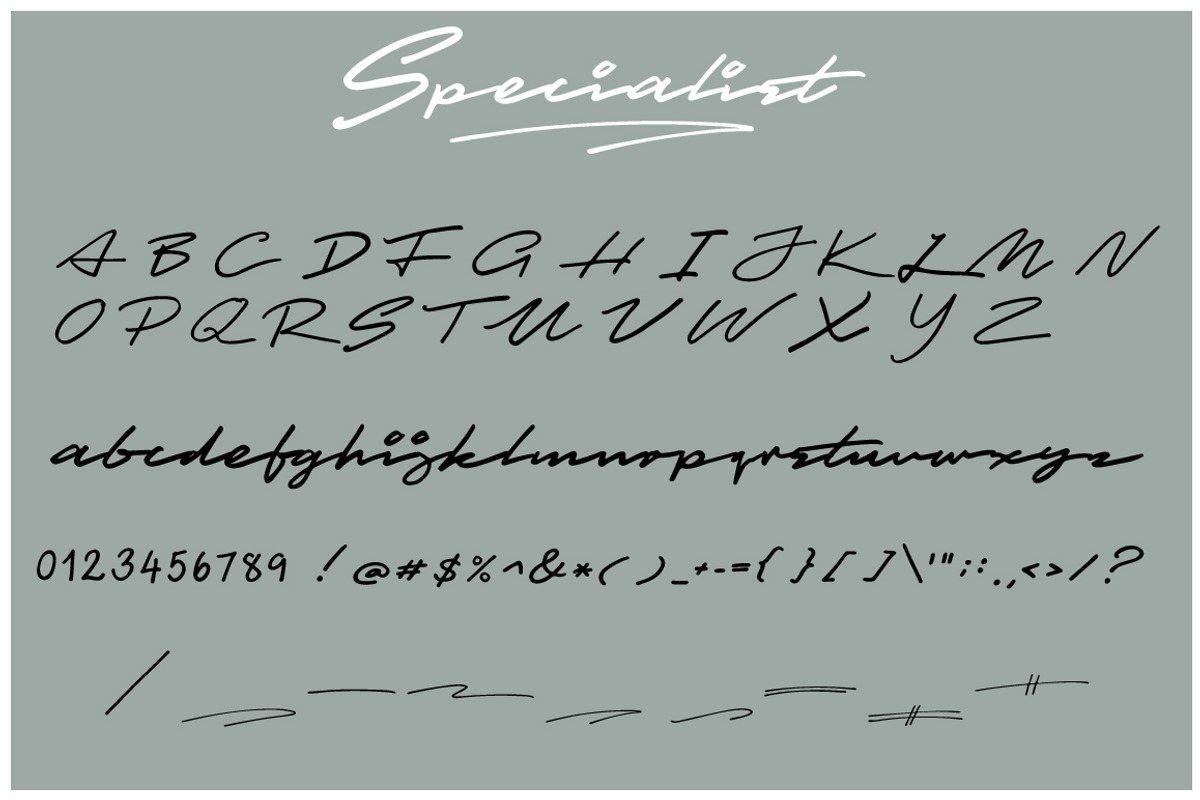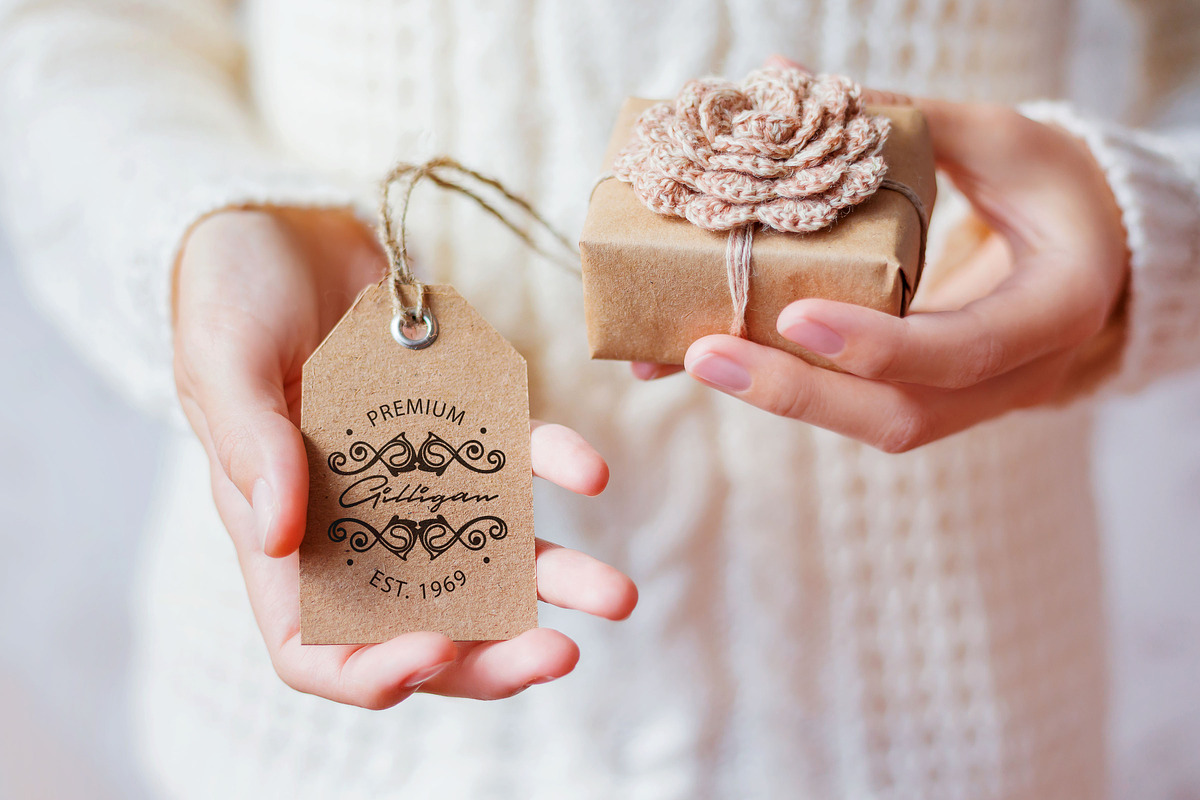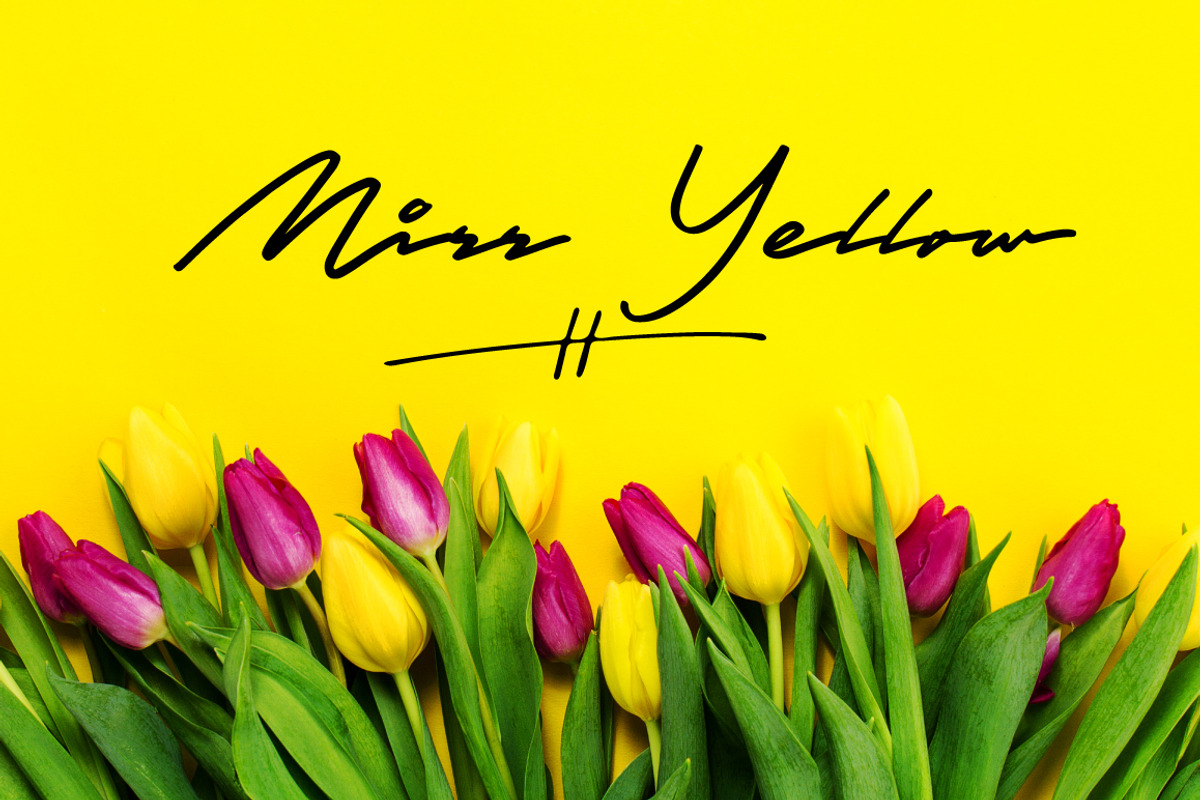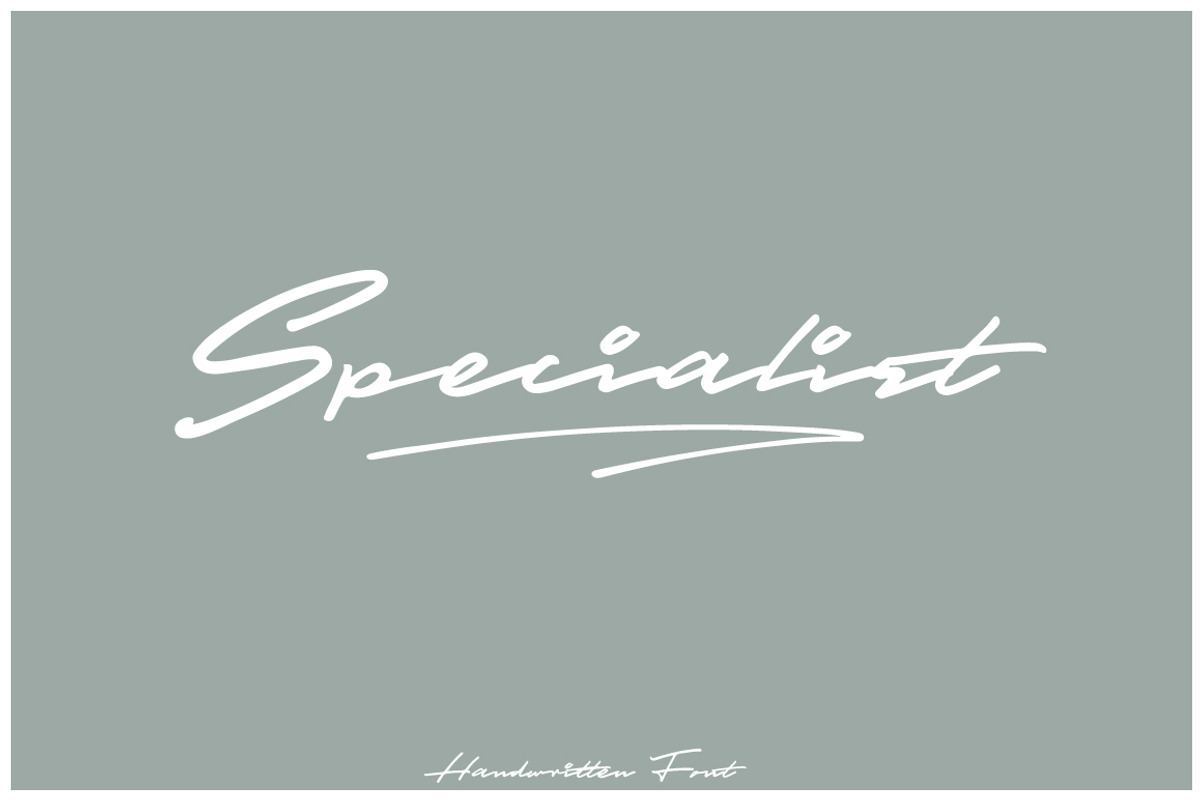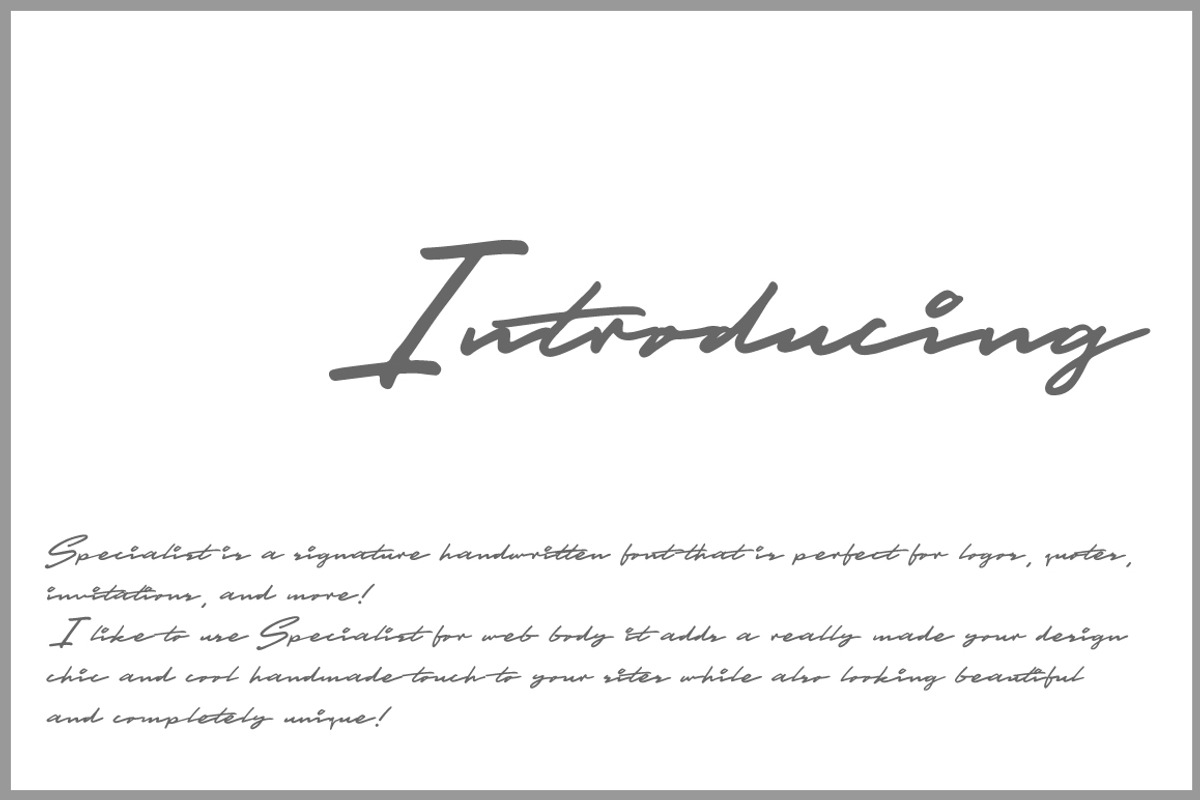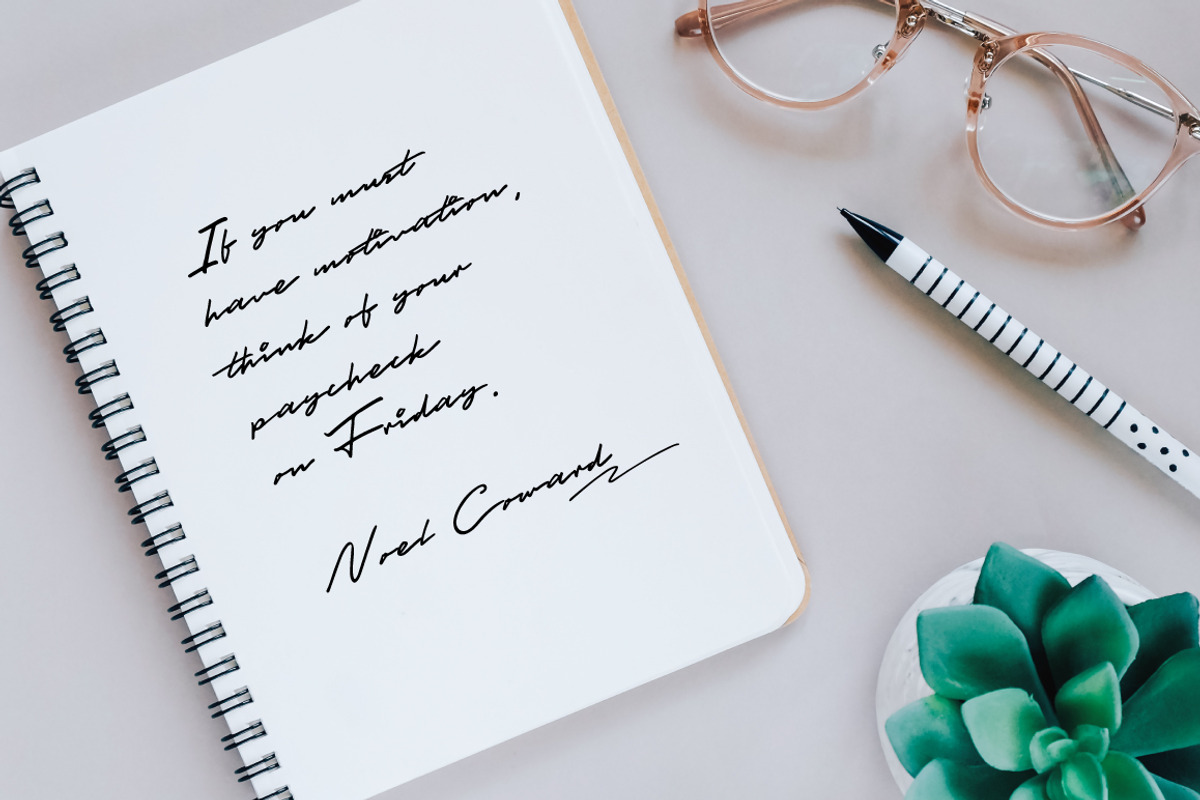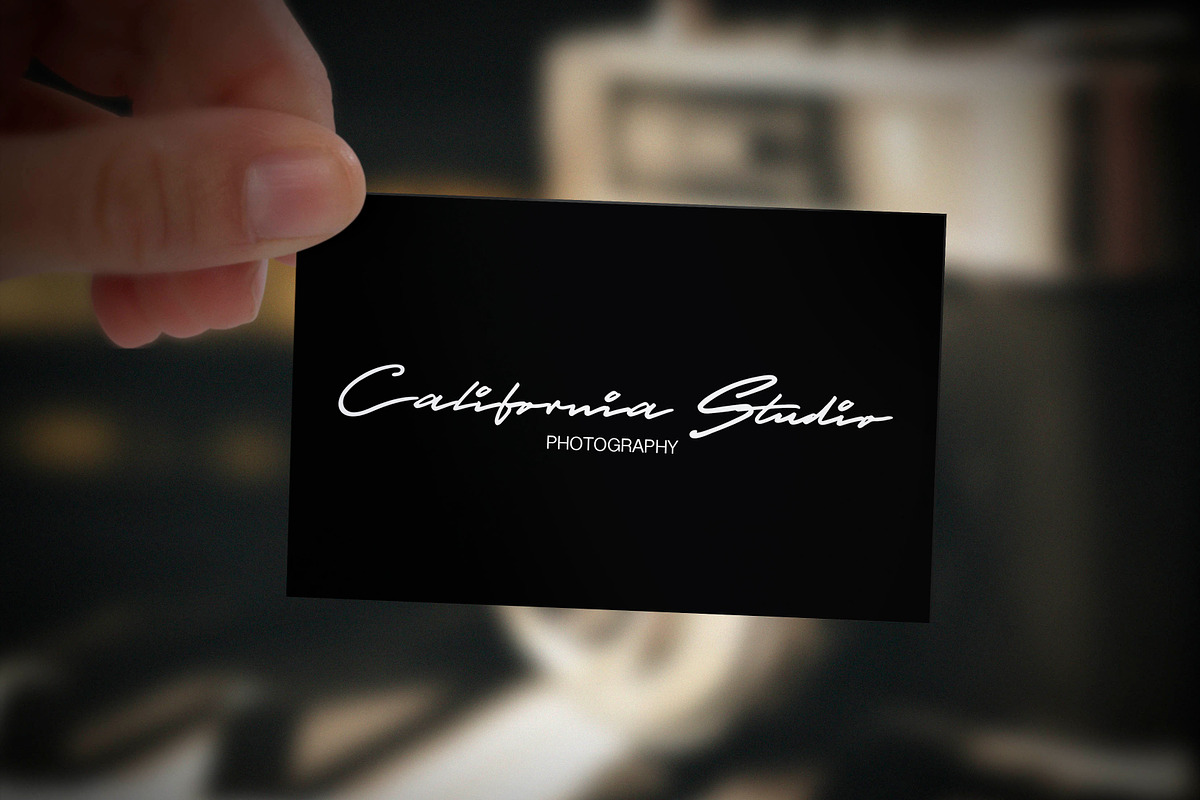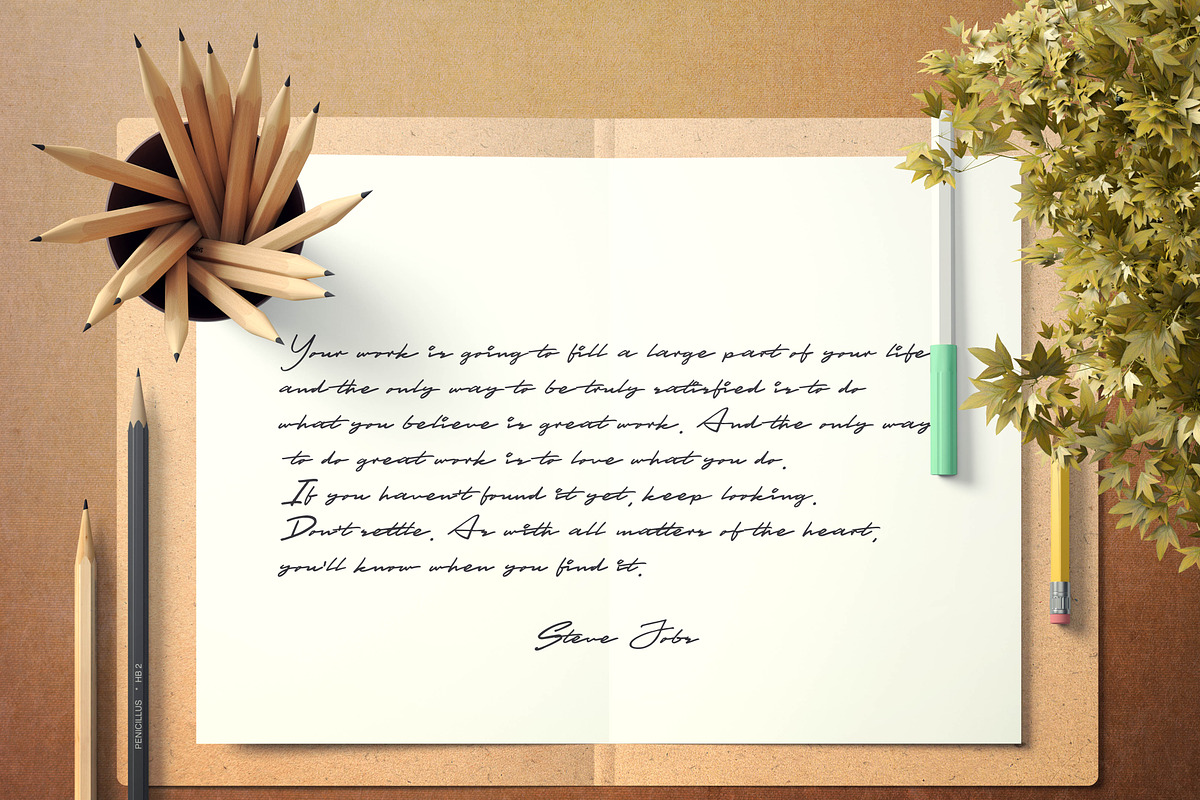
Specialist Handwritten Font
Specialist Handwritten font it is a chic, signature, script which will give instant class and style to your work. Use this font for branding, logo's, signatures, invites, and all your other lovely projects.
Why Specialist Handwritten Font is worth a look
Specialist Handwritten Font by Artstudio fits naturally into Branding, posters, packaging, typography.